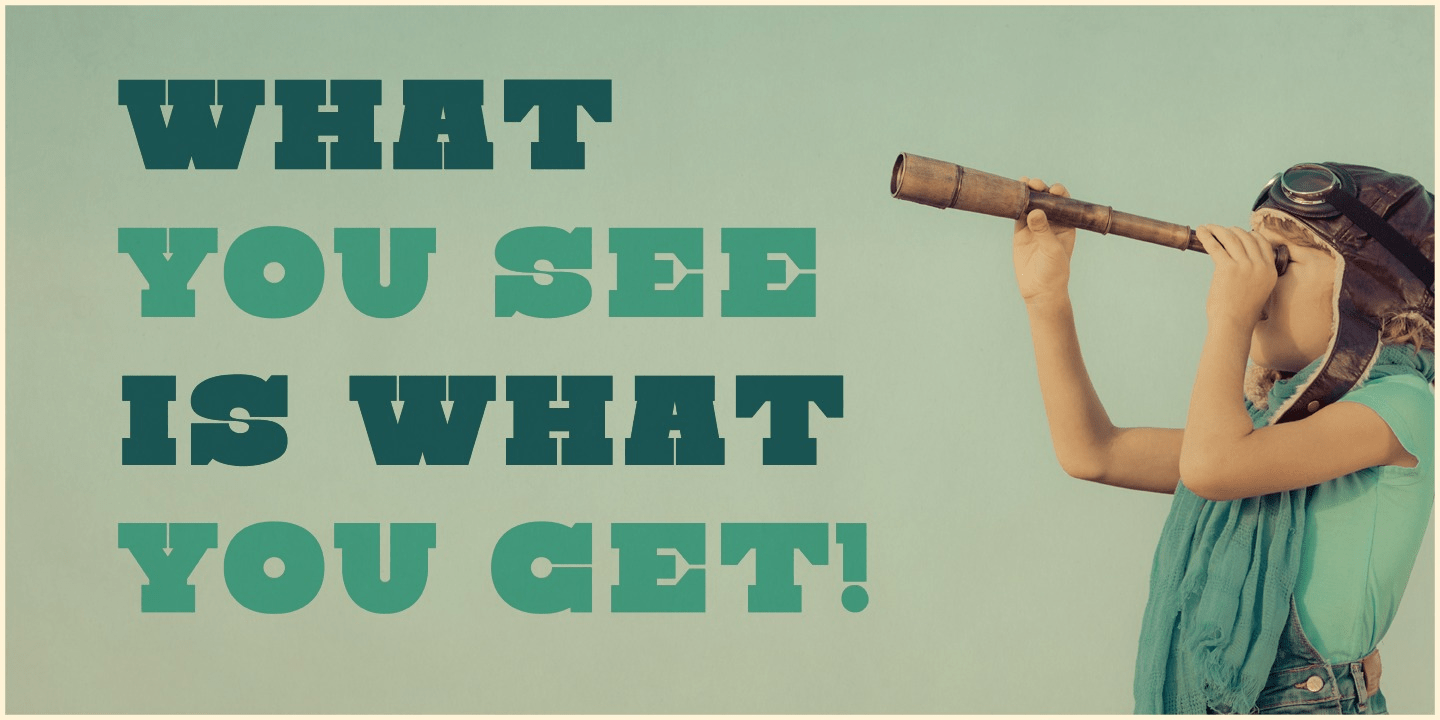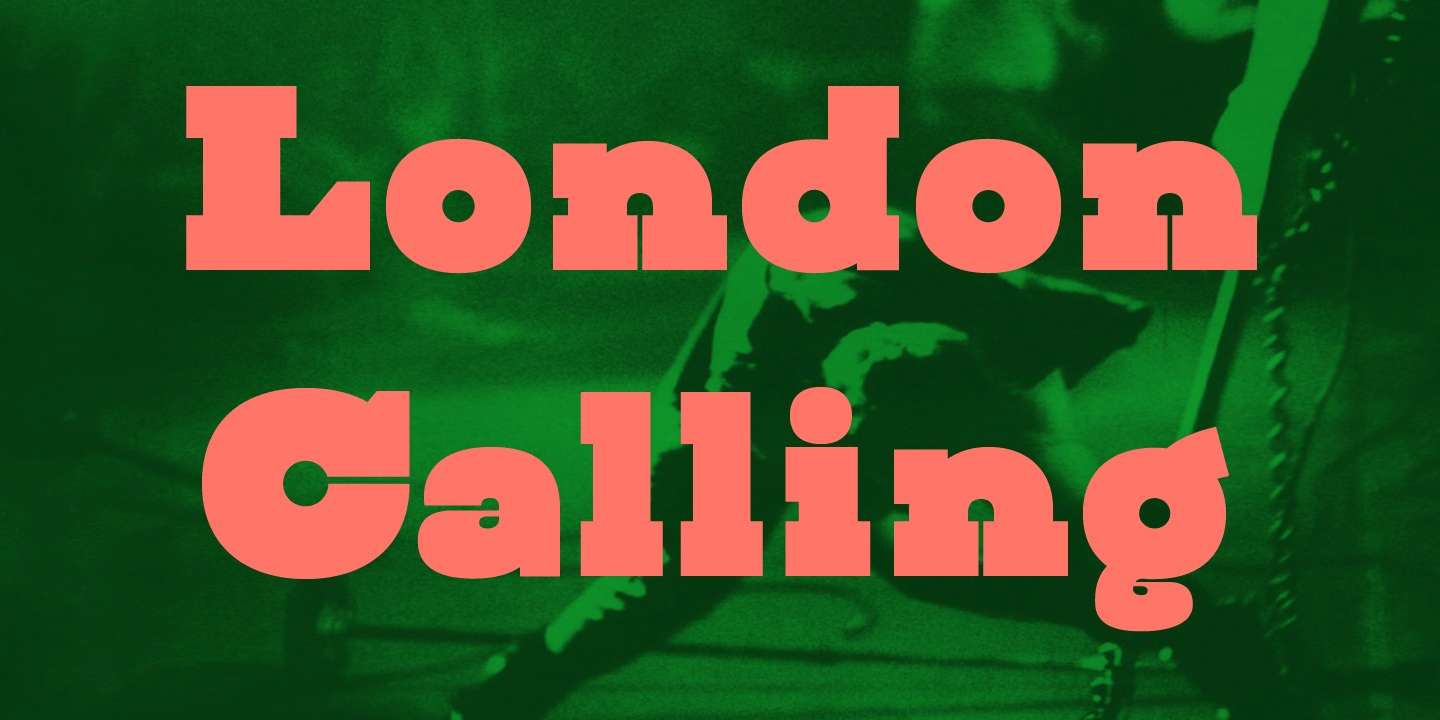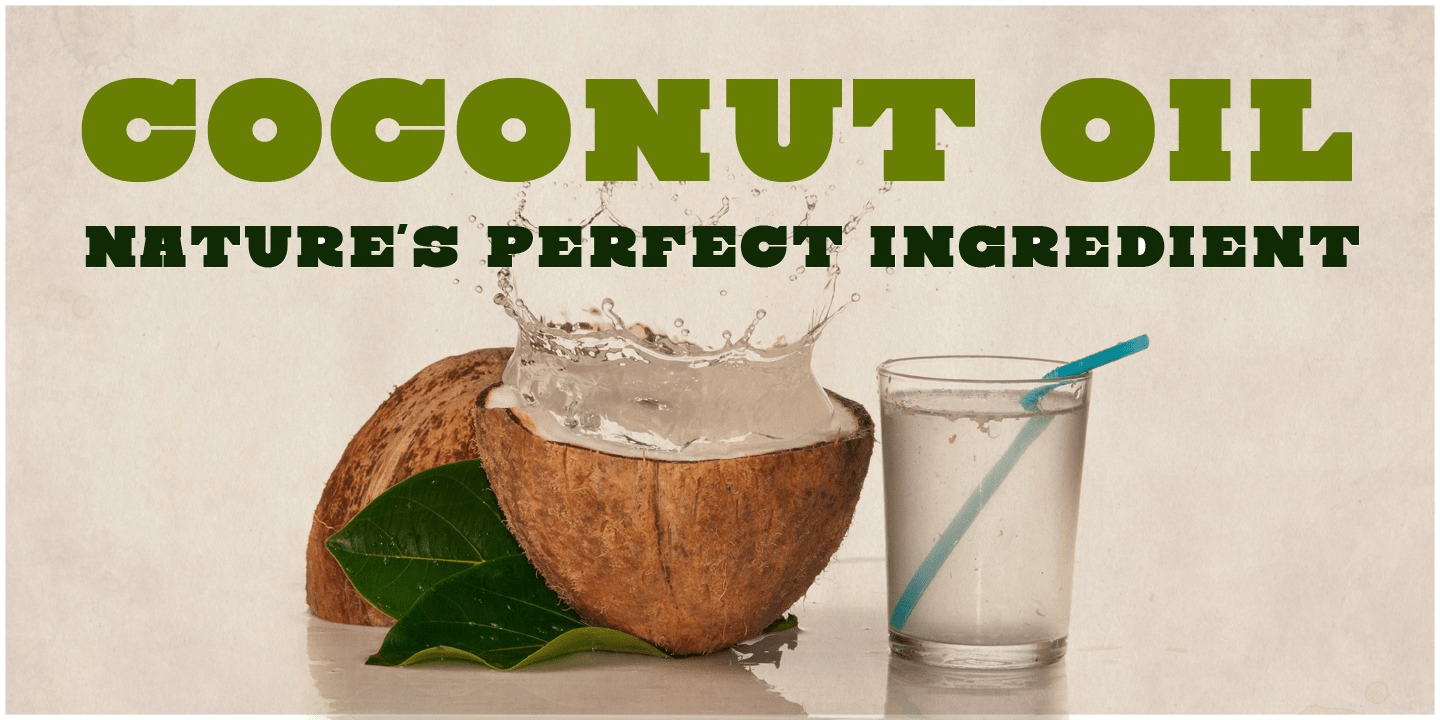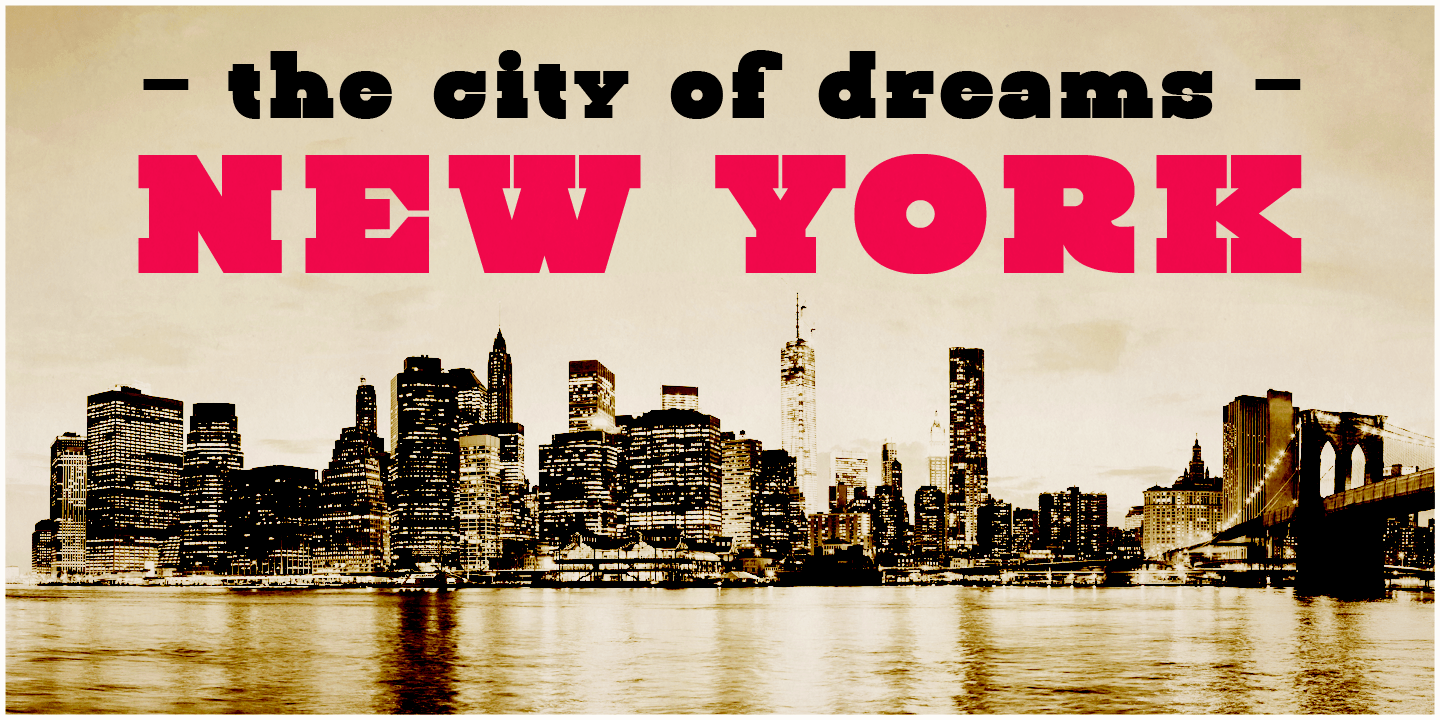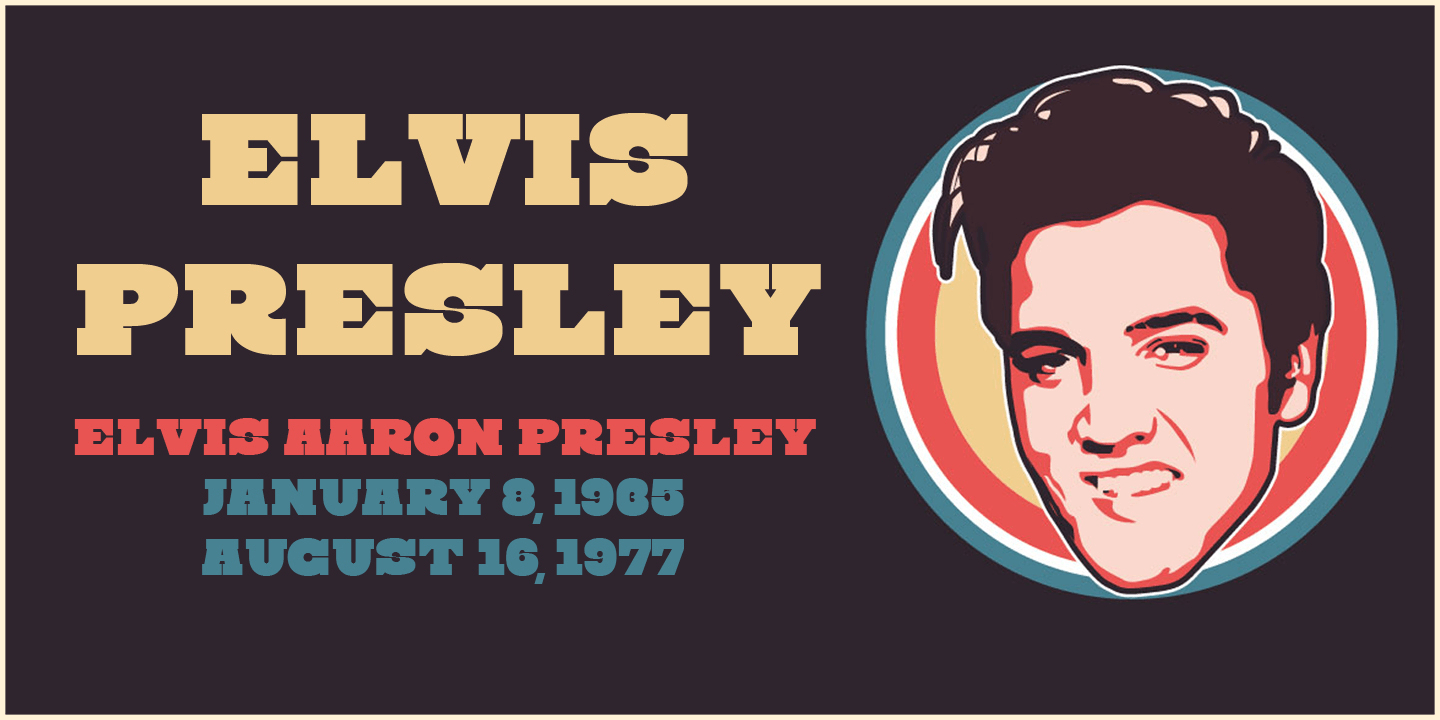
Steampunk
The Steampunk font is inspired on sixties hand lettered French movie poster of Charles Bronson. This style of type is instantly associated with advertising and design for high-end products with a touch of Arts & Crafts. Steampunk is carefully drawn for quality and readability. Steampunk is great for display, logos, branding, packaging, advertising, food, sports, titles, film, tv, and more. Steampunk comes in 2 styles witch match perfectly togheter. Steampunk is a great display family with roots in the past century advertisng and signpainting industry, and no wits but smooth polished wit hall the features a good designer needs. For the best price grab the whole pack! Steampunk is designed by